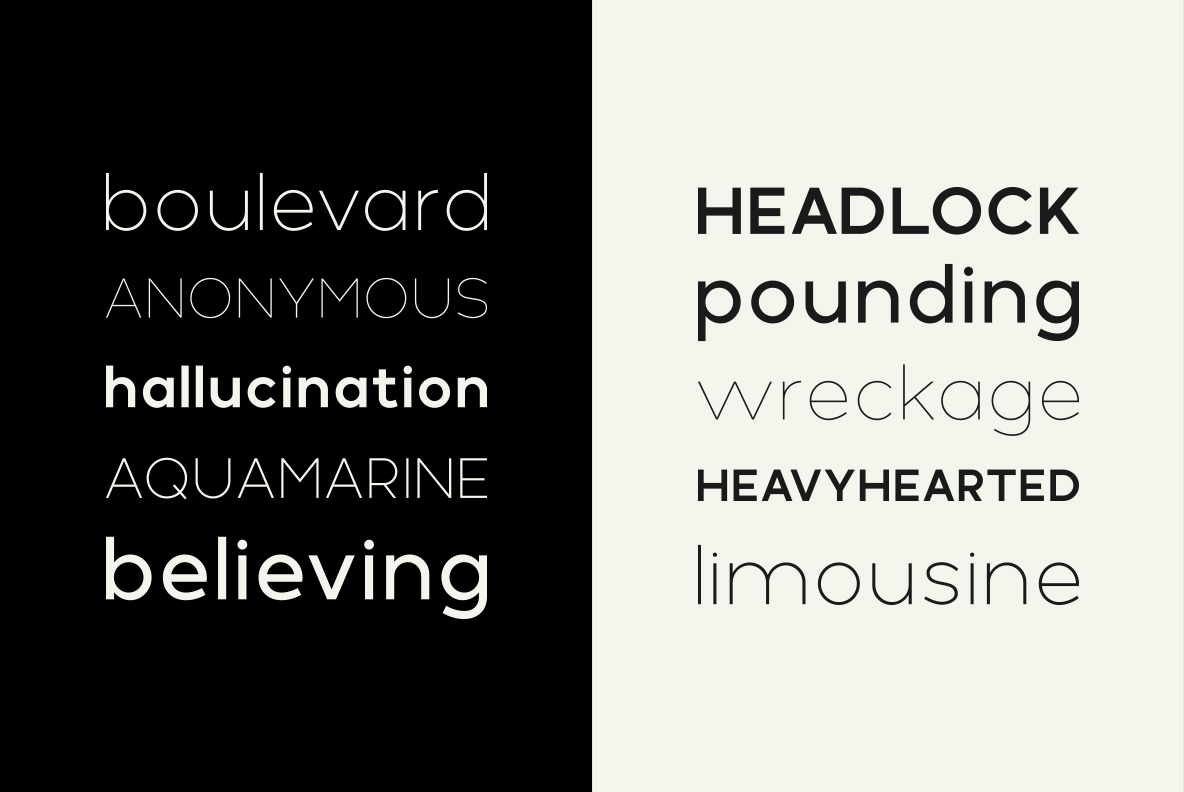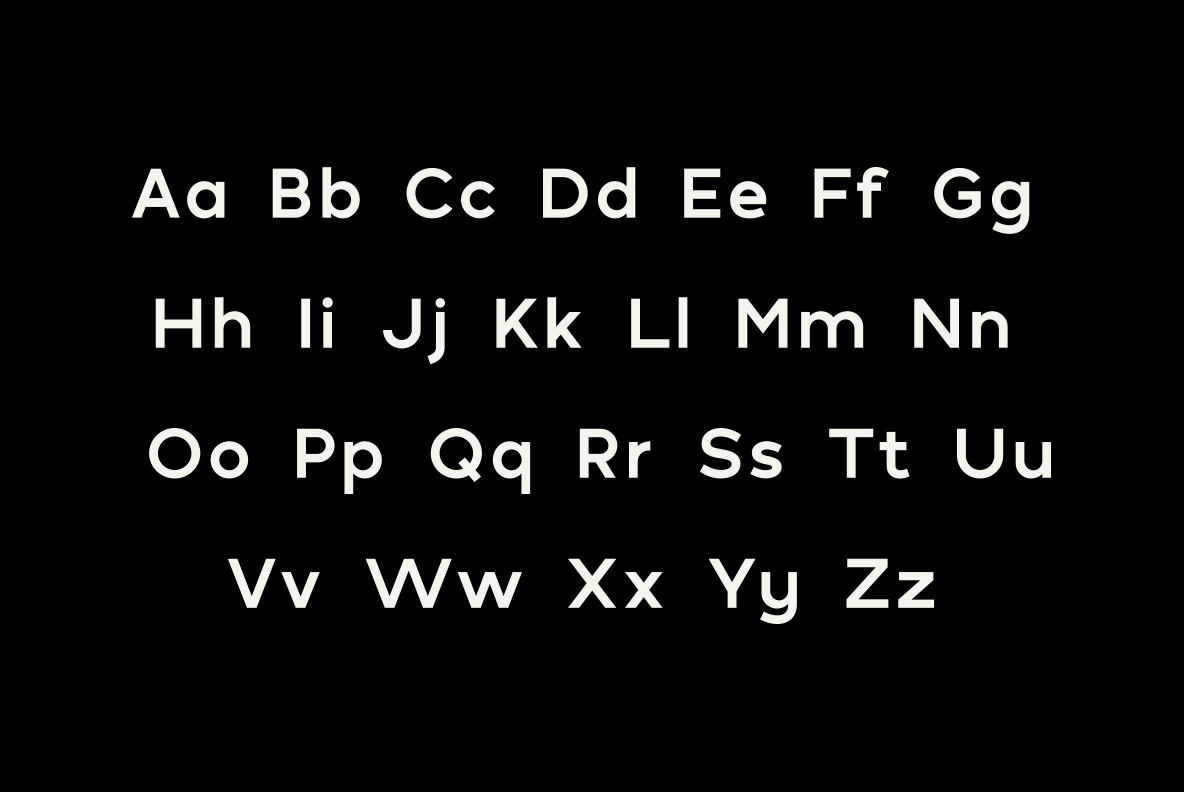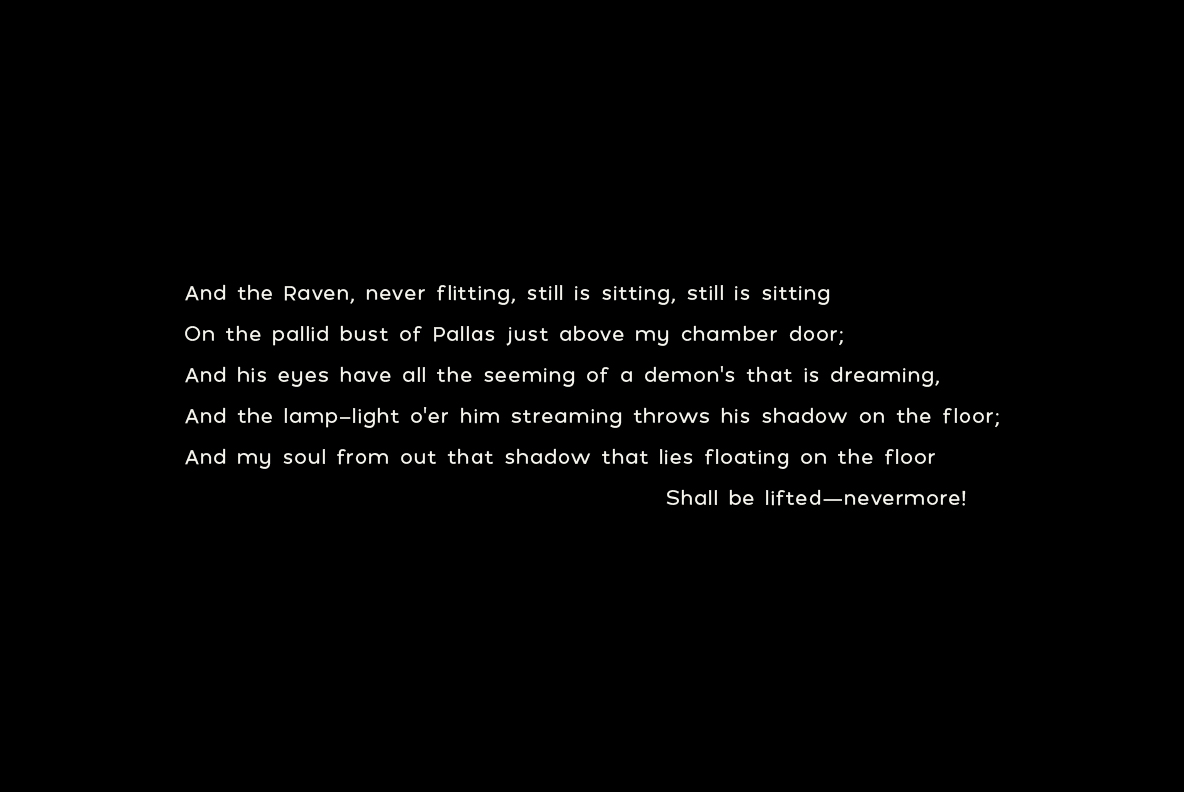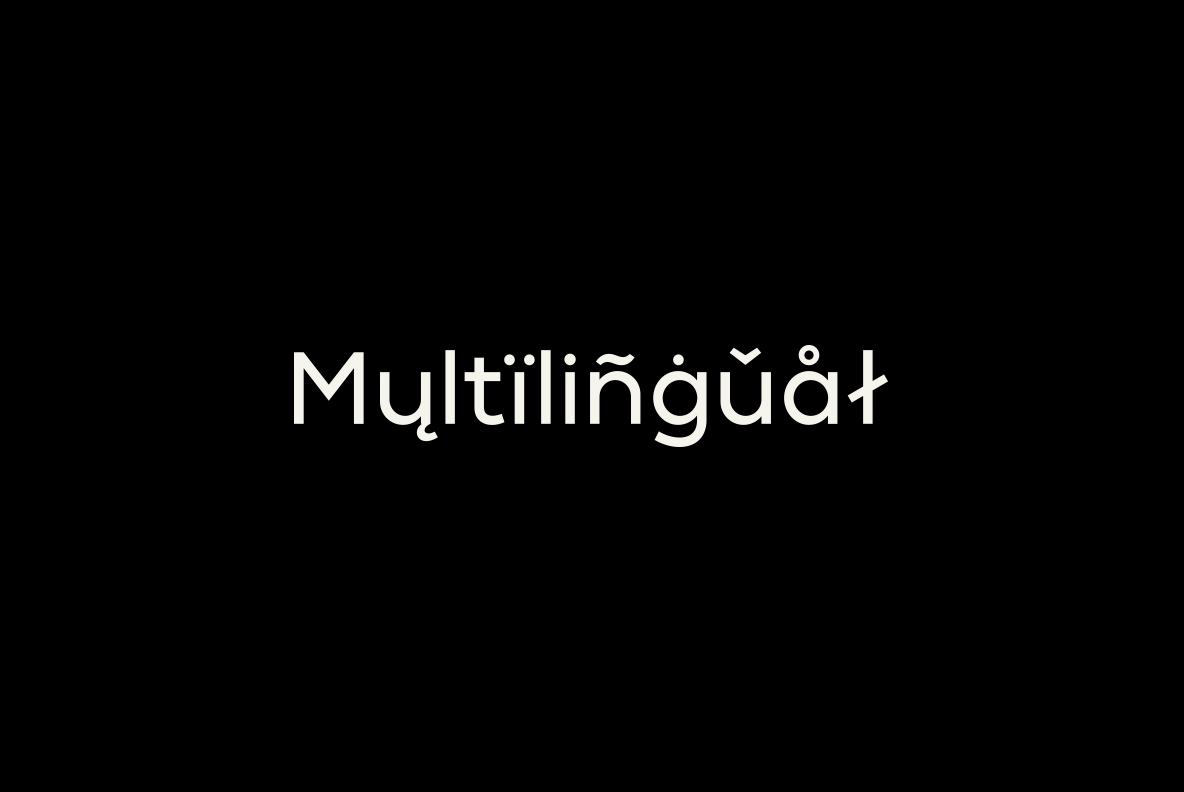
Introduction to Polly Font
Polly is a minimal sans serif, constructed with geometric forms.
This sleek and simple font is extremely useful for a large number of designs, due to its variability and minimal approach to typographic style Download Polly, a beautifully minimal sans serif font.
Key Features of Polly Font